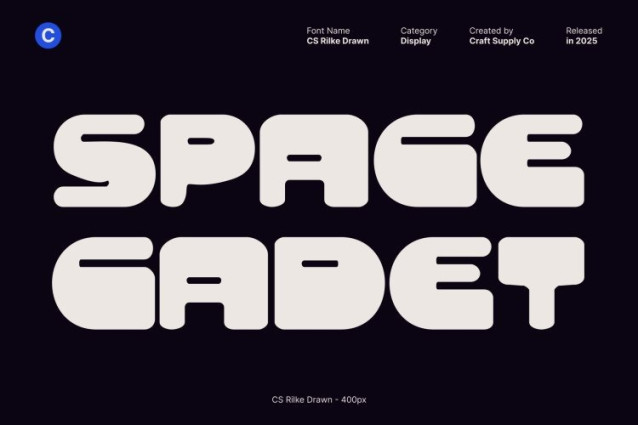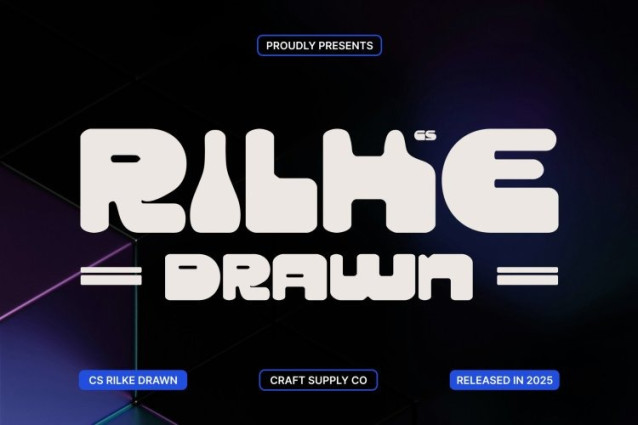
CS Rilke Drawn Font
CS Rilke Drawn Font This is a futuristic display font infused with a bold Y2K-inspired aesthetic and enhanced by a subtle hand-drawn texture. Its sharp structure and contemporary flow capture the spirit of digital culture, while the drawn effect adds a natural, organic layer that makes the font feel more expressive and unique. The result is a futuristic typeface that feels energetic, stylish, and visually distinctive.
Bold Geometric Design with Hand-Drawn Character
Built from strong, blocky geometric forms, this font commands attention with confidence and clarity. The precise construction ensures impact, while the hand-drawn nuances soften the rigidity of the geometry. These slight imperfections give each character personality, blending technological precision with a human, handcrafted touch.
Perfect for 3D, Digital, and Experimental Styles
This font works exceptionally well with 3D effects, gradients, motion graphics, and digital treatments. Its solid structure holds up beautifully in futuristic posters, gaming visuals, and tech-inspired designs, while the drawn texture adds depth and visual interest that elevates modern compositions.
Versatile for Bold, Forward-Thinking Projects
From posters and music visuals to branding, games, and experimental layouts, offers flexibility across creative fields. It’s a font that merges innovation, nostalgia, and handcrafted character perfect for designers who want futuristic typography with natural texture and unmistakable personality.